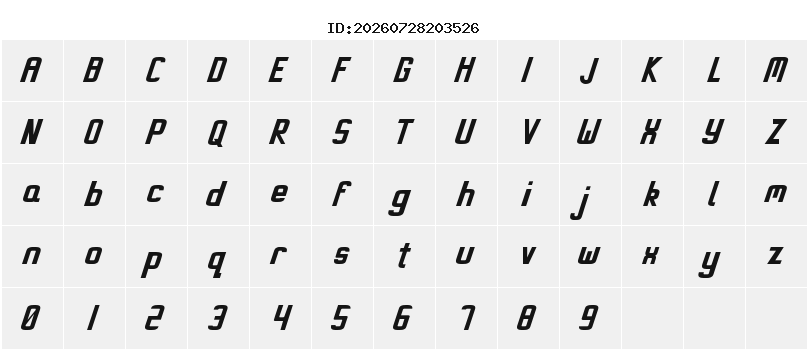
• Font Name: Miami
• Full Font Name: Miami Regular
• Designer: Alex Chopjian
• Manufacturer: Alex Chopjian
About Miami.ttf
Miami.ttf is a modern, elegant sans-serif font designed for ultimate readability and visual harmony. Perfect for branding, headlines, web design, and print materials.